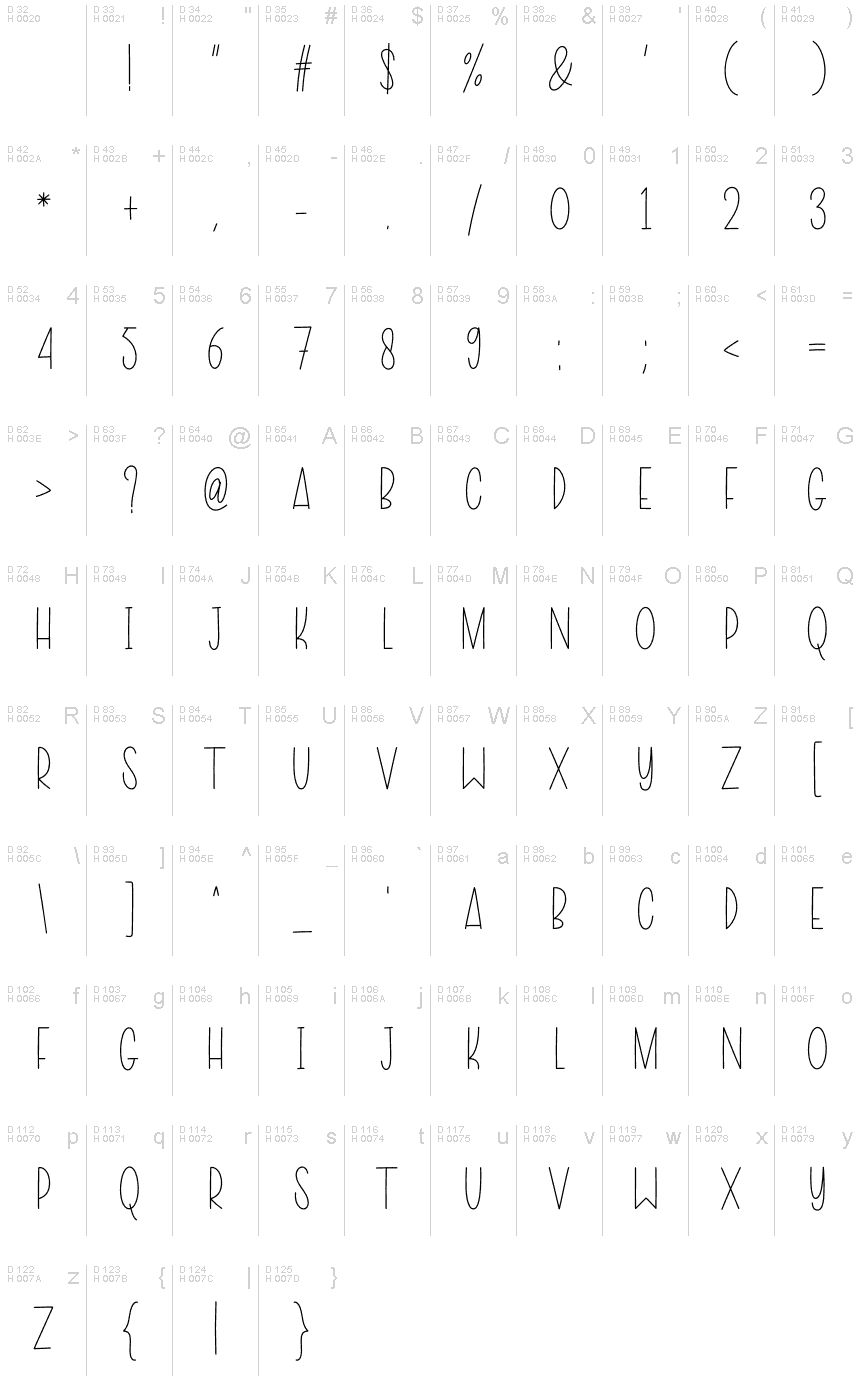
Overlove
Overlove, the extra-light and condensed handwritten font designed by scratchones, is perfect for projects that require a touch of whimsy and playfulness. Its unique style adds a personal touch to any design, whether it's a wedding invitation or a children's book cover. The condensed width makes it ideal for creating eye-catching headlines and attention-grabbing graphics. Use Overlove to add personality to your branding materials or give your social media posts a fun twist. With its delicate strokes and playful curves, this font is sure to bring joy and charm to any project.
the latest style letters are perfect for wall displays, wedding invitations, social media post logos, advertisements, product packaging, product designs, labels, photography, watermarks, invitations, stationery, and any project that requires taste handwriting.